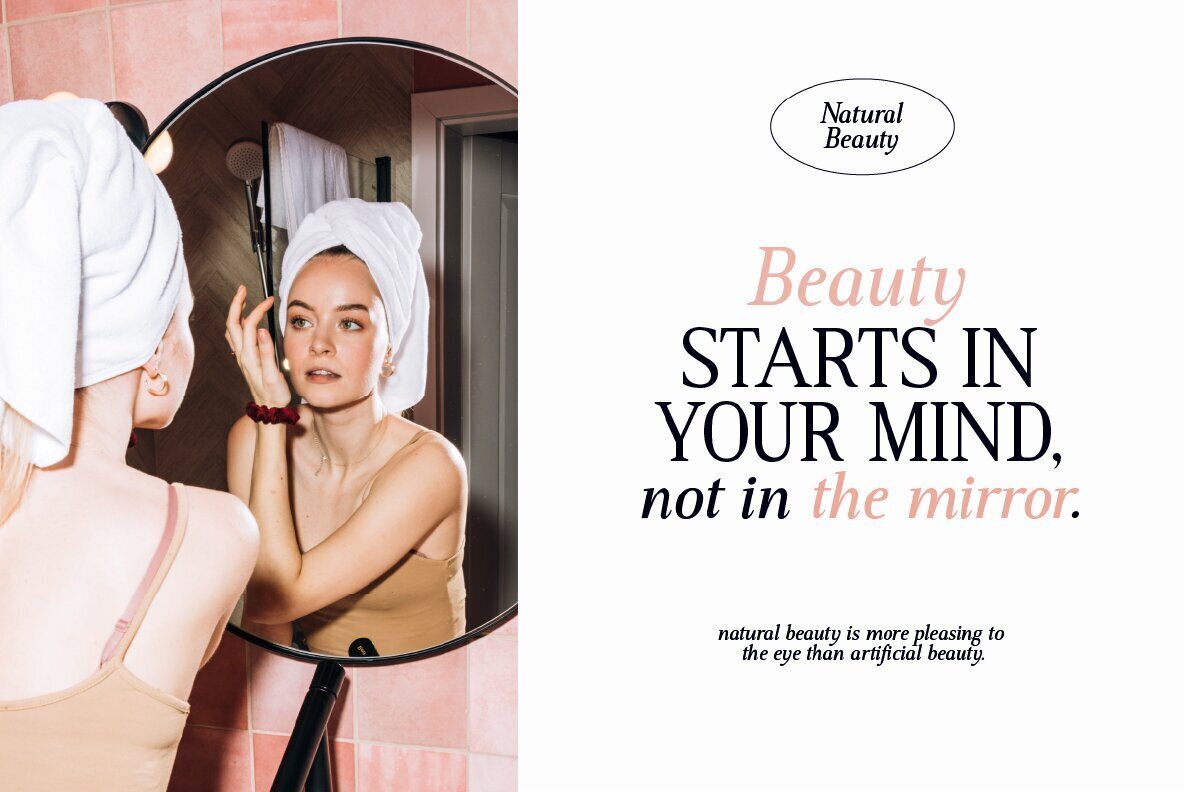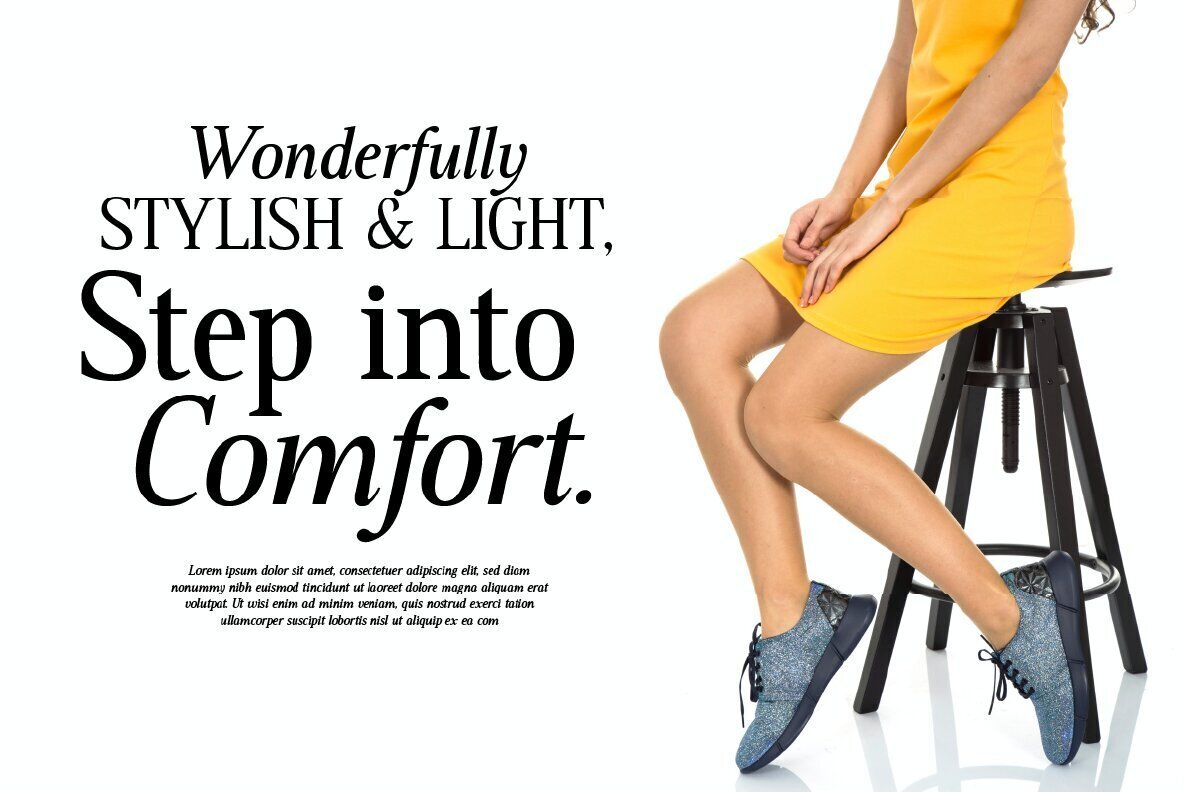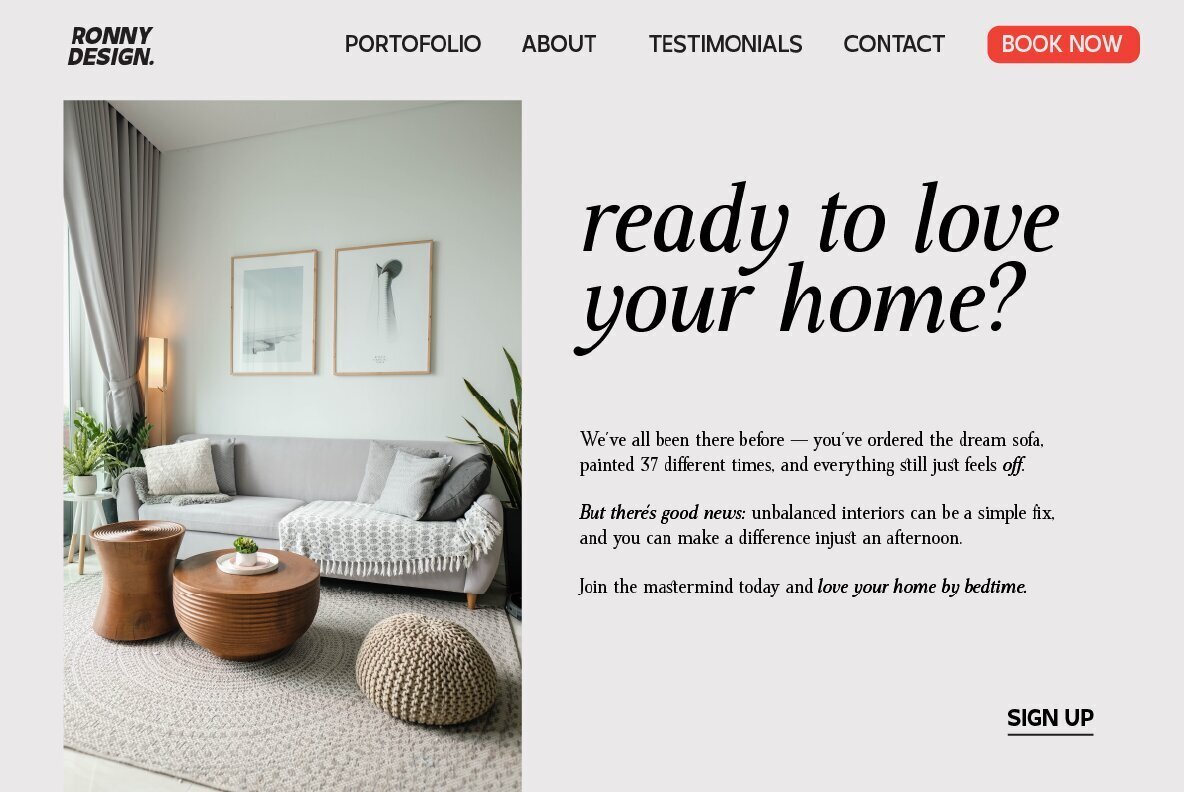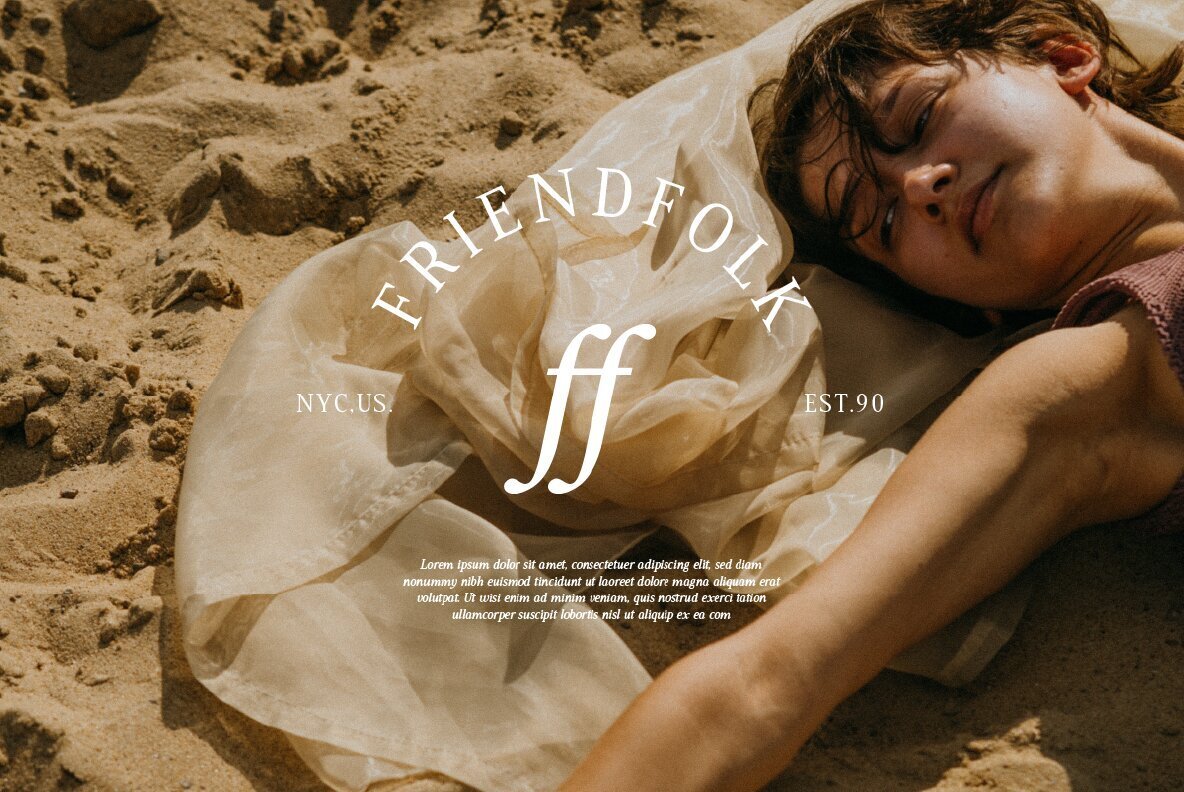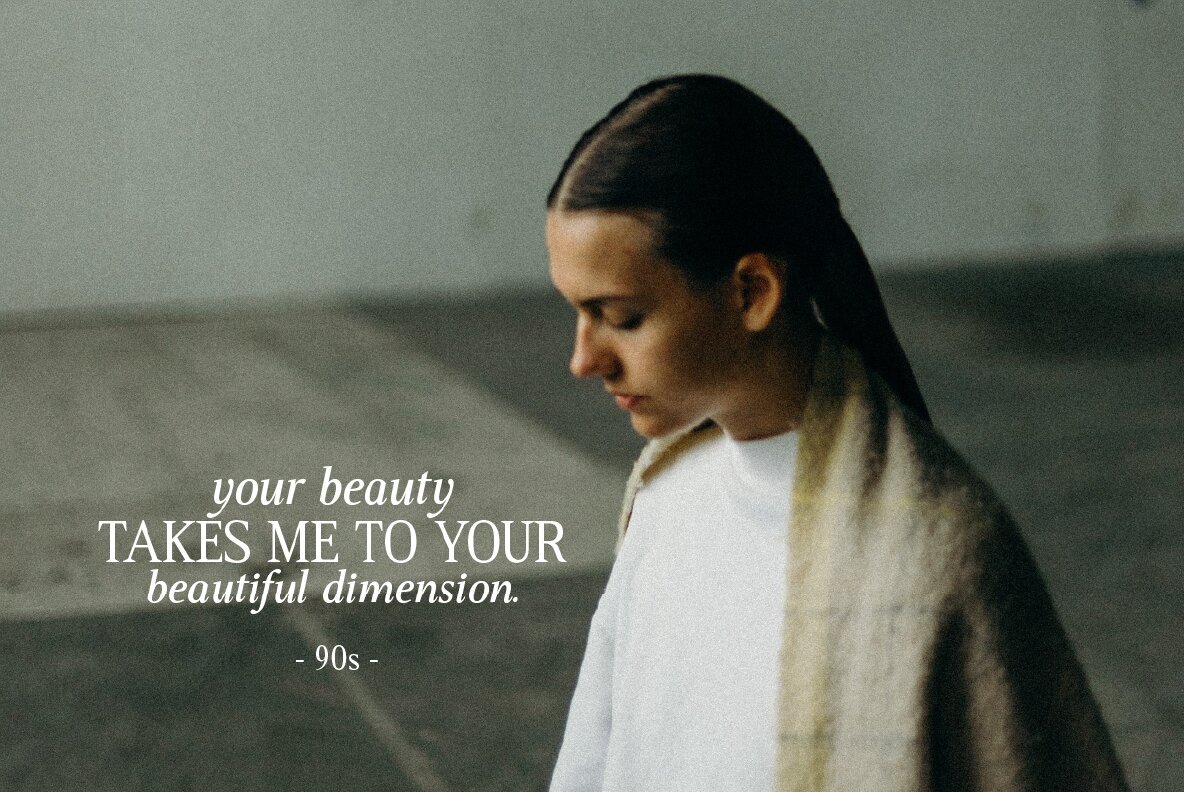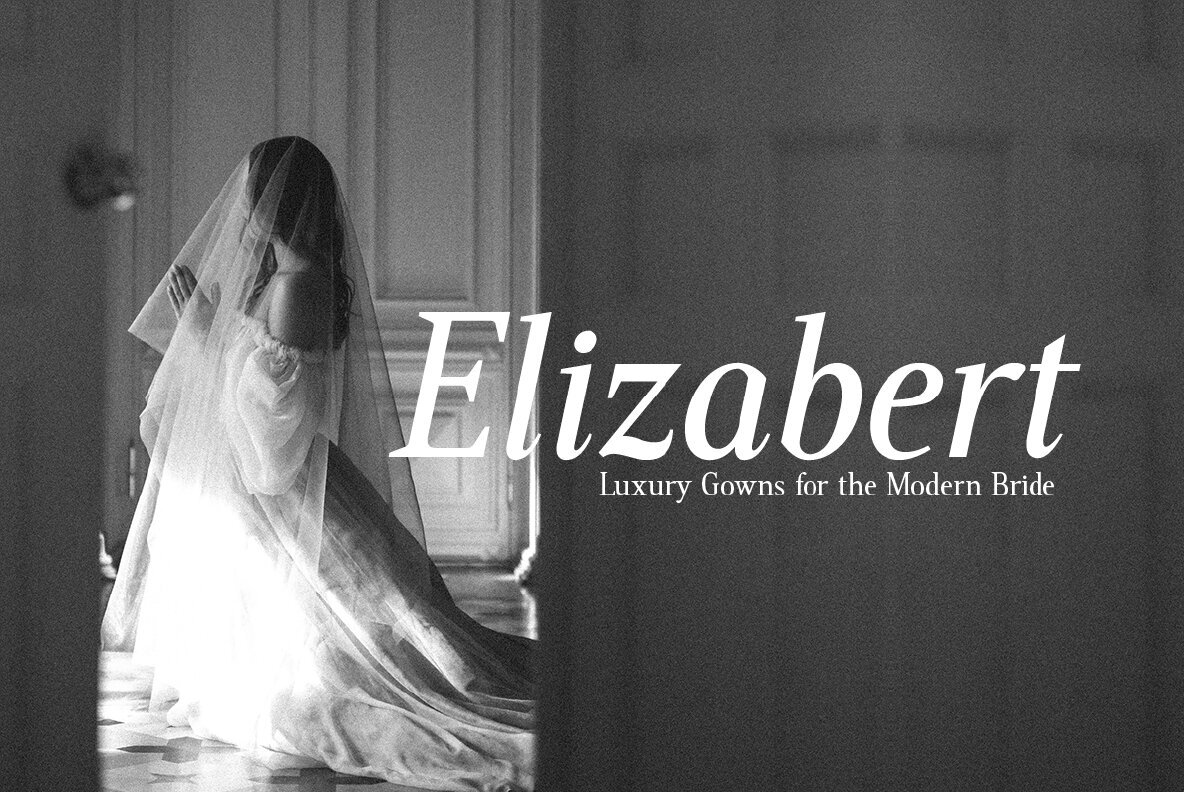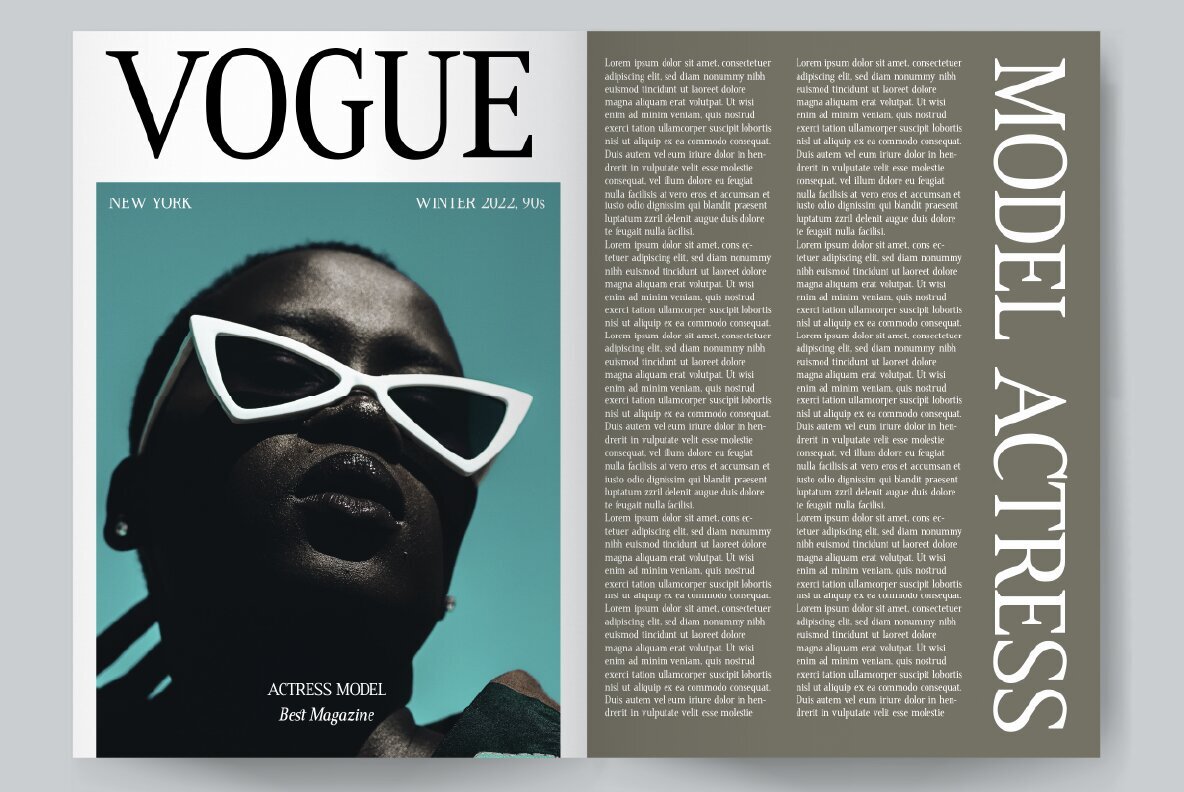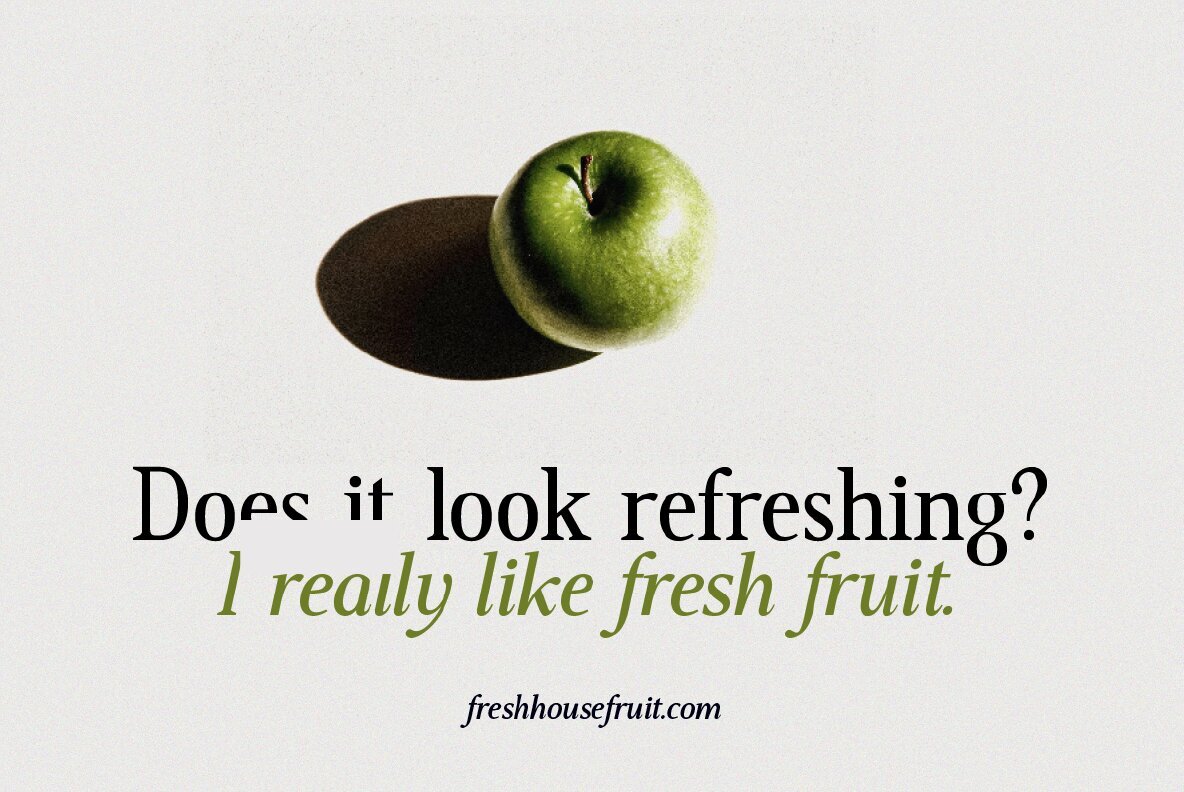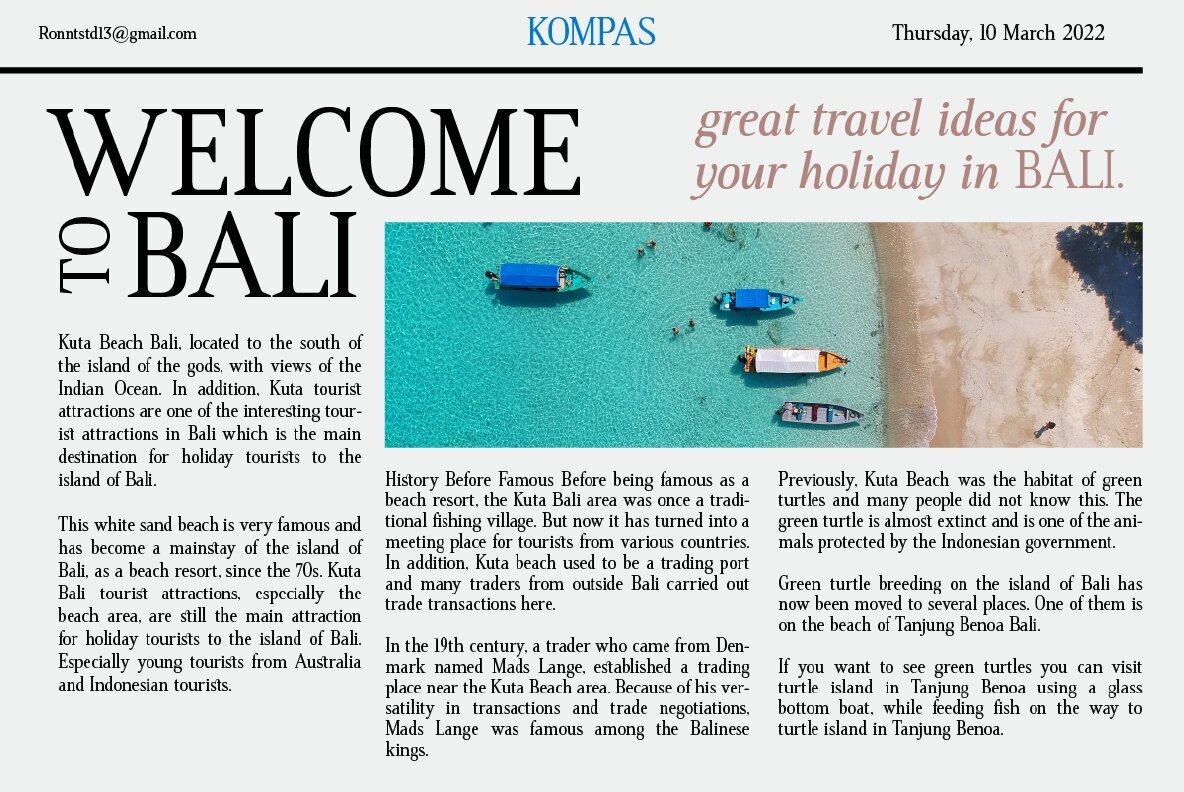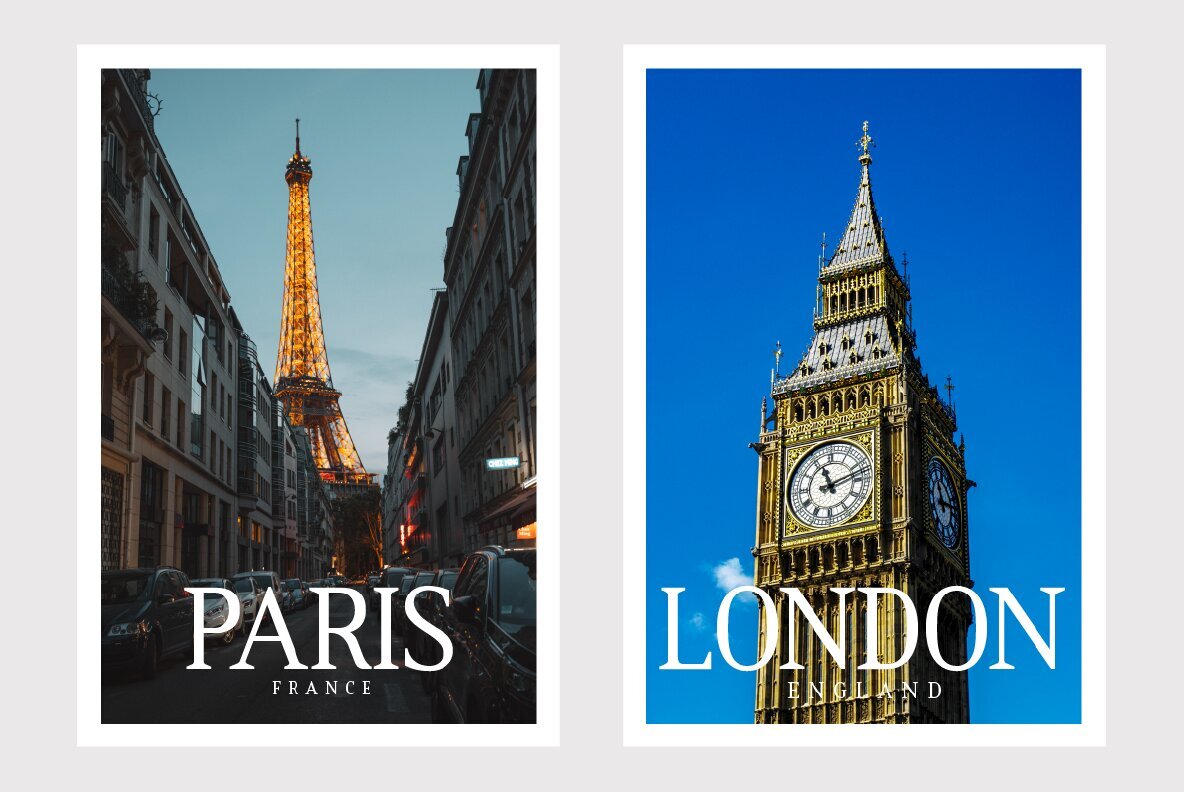
Geffroy Eleonora Font
Geffroy Eleonora evokes the elegance of the 1980s, offering designers a serif font that is both nostalgic and contemporary. Its refined style is ideal for projects ranging from invitations to logos, providing a premium aesthetic that commands attention. The font includes complementary italic versions, making it versatile for different design applications, including stationery, novels, and more.Geffroy Eleonora: A Classy Eighties Magazine-Inspired Serif
Infuse a touch of sophistication into your creations with Geffroy Eleonora, perfect for making a bold statement in your projects.